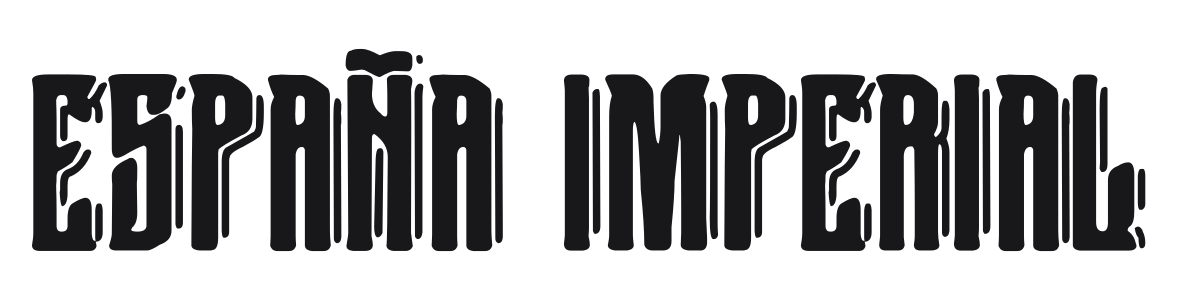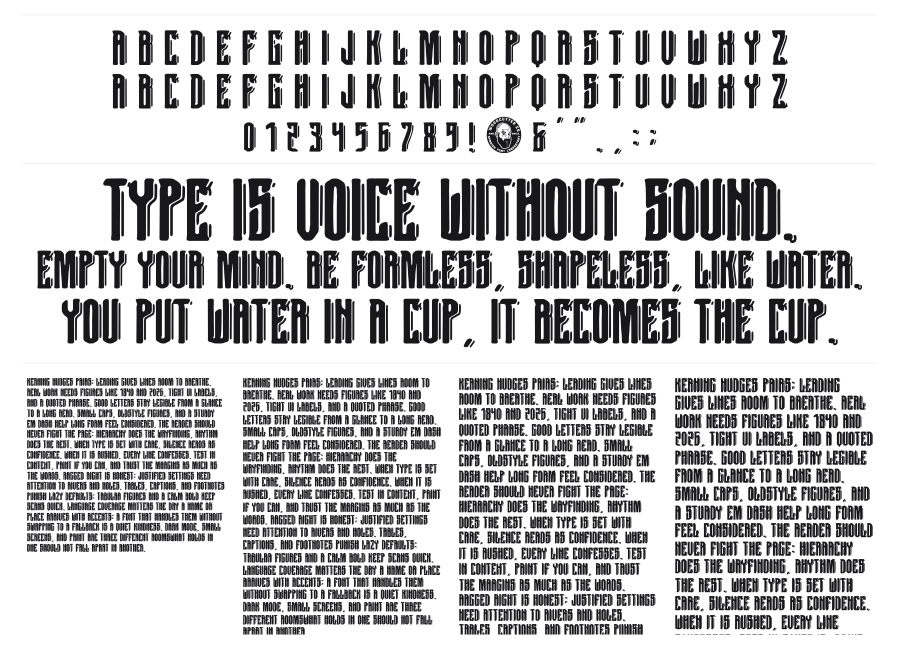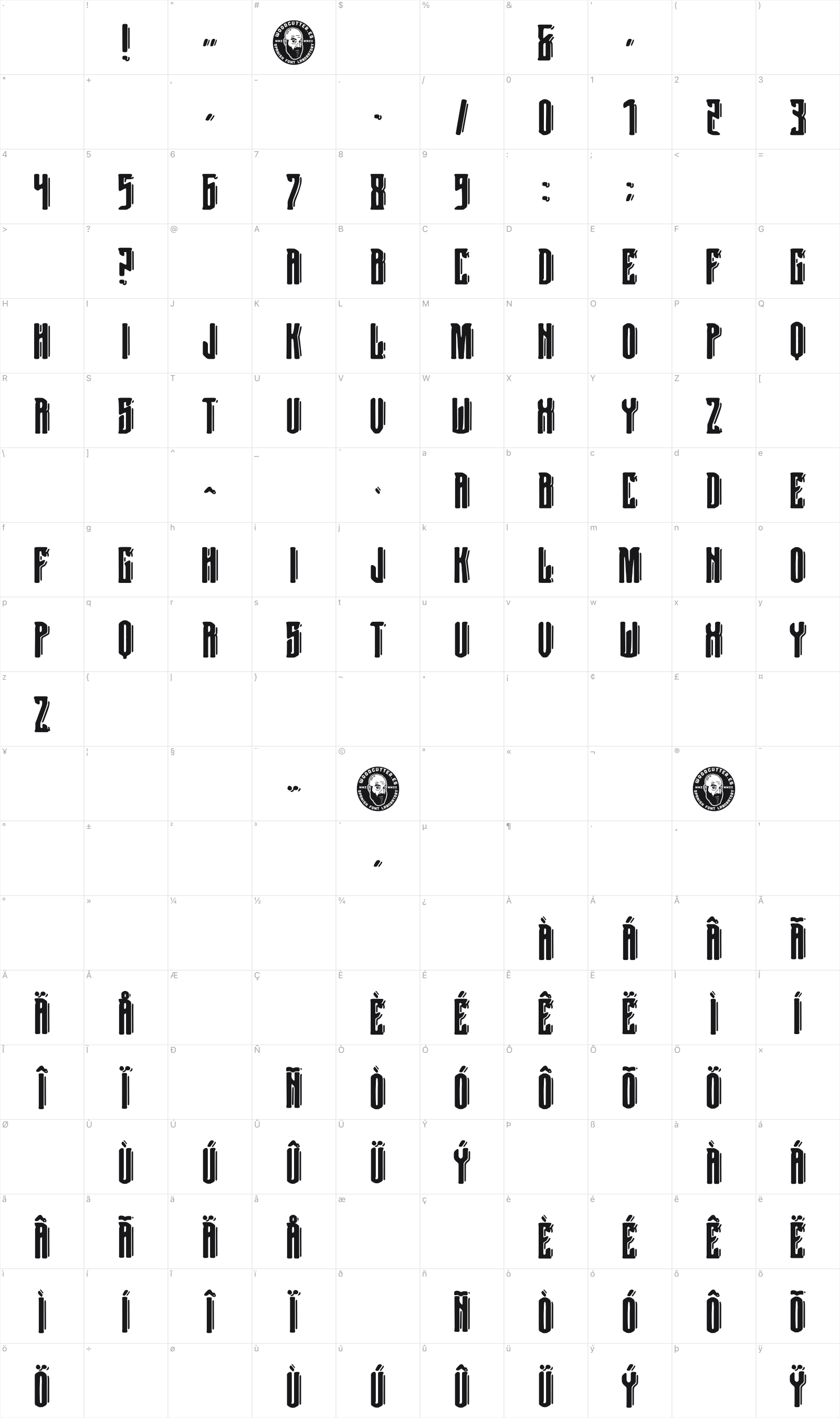
España Imperial
España Imperial is a condensed gothic display face by Woodcutter, built from thick stems sliced through with vertical cuts that evoke carved stone, aged woodblocks, or battle-worn inscriptions. The distressed texture gives it a monumental, almost ominous weight that commands attention at large sizes. It suits posters, album art, game titles, and anything that needs a dark historical edge.